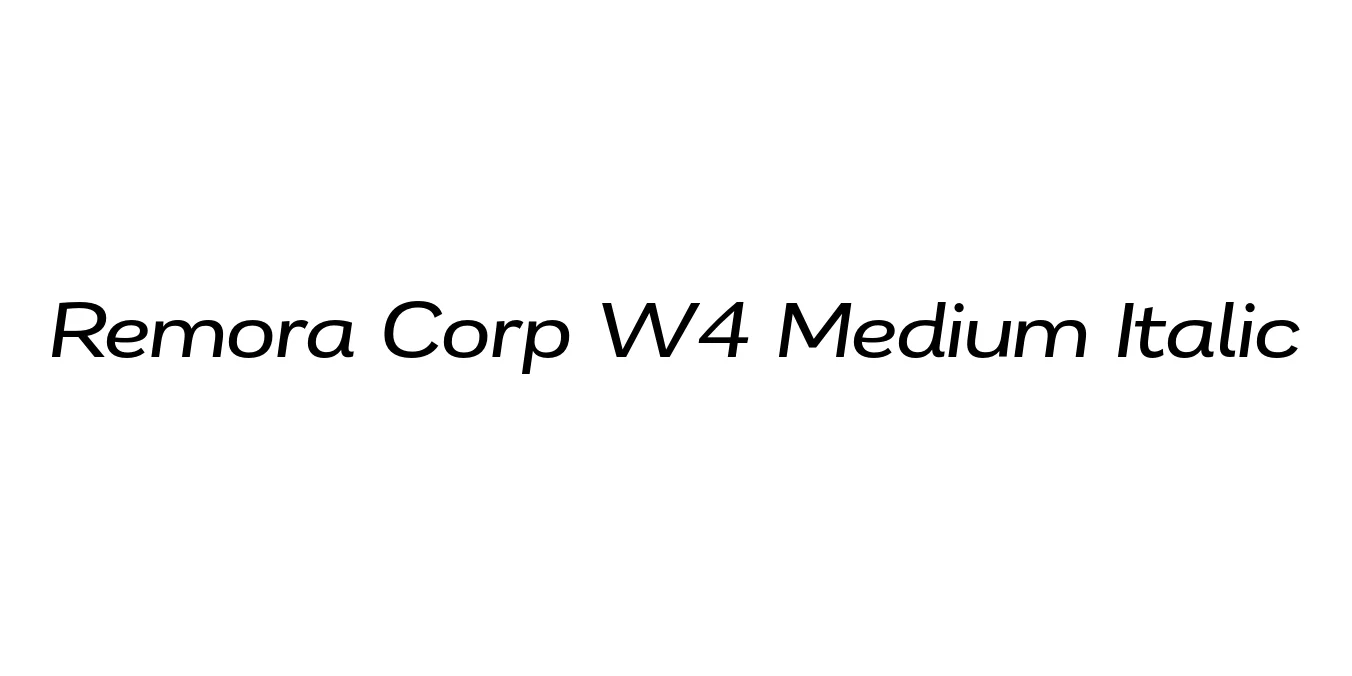
Remora Corp W4 Medium Italic
Designed by Nick Cooke
Remora Corp W4 Medium Italic is a highly refined sans-serif typeface designed by Nick Cooke of G-Type. As part of the expansive Remora superfamily, the 'Corp' variant is specifically engineered for professional and corporate environments. It balances a clean, modernist aesthetic with subtle humanist touches, ensuring that the typeface remains approachable yet authoritative. The W4 Medium weight provides a robust presence without feeling overly heavy, while the italicized slant offers a sophisticated dynamic for emphasis.
This typeface is characterized by its generous x-height and open counters, which contribute to exceptional legibility across both digital platforms and high-resolution print media. Remora Corp was designed to be a versatile workhorse, capable of handling complex information hierarchies in business reports, branding, and editorial layouts. Its neutral yet distinct personality makes it a favorite for designers seeking a contemporary alternative to traditional grotesque fonts.
Remora Corp W4 Medium Italic Best Uses
Perfect for creating strong, professional corporate identities and logos.
Excellent for headers, pull-quotes, and subheadings in business journals.
Optimized for readability in modern app interfaces and web dashboards.
Effective for clean, minimalist marketing campaigns and professional presentations.